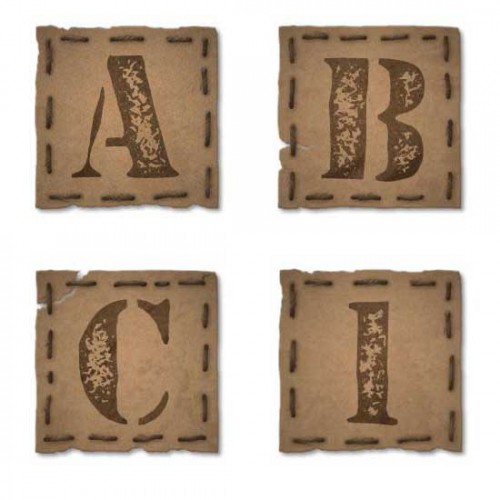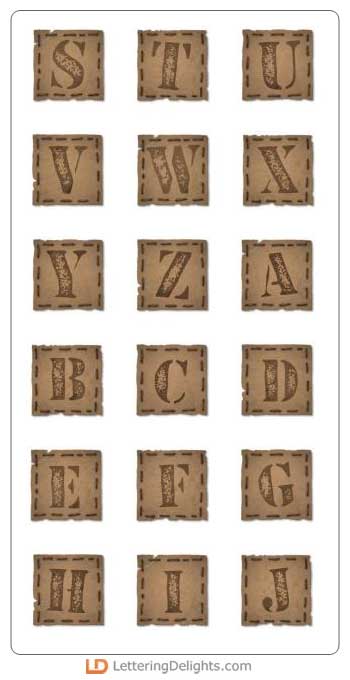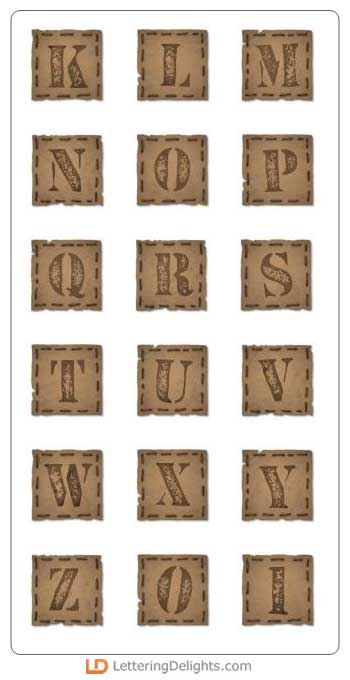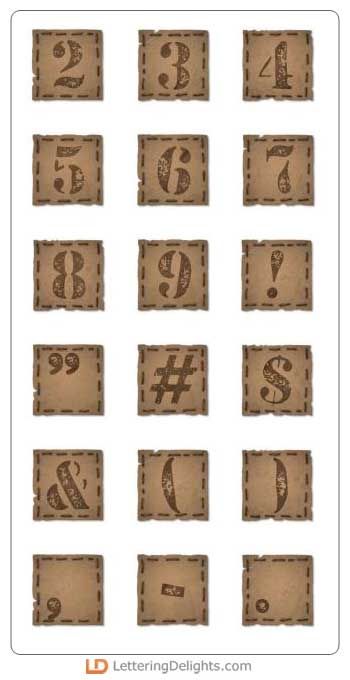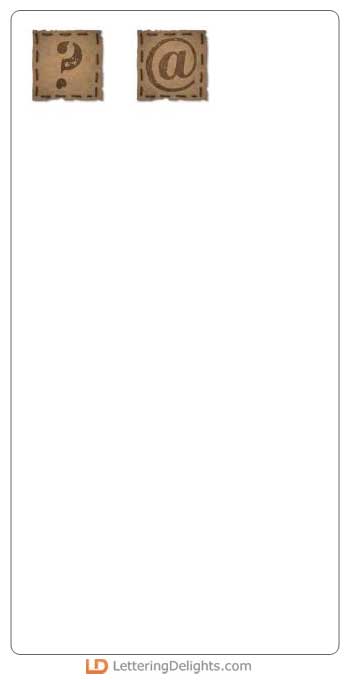
This alphabet looks like something made by your great Aunt Millie! The letters are placed in the middle of an old looking piece of leather. It even has stitches around the outside. It's great for that heritage look.